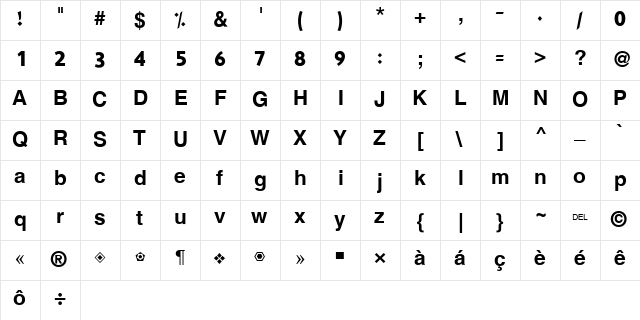
Hacen Liner XXL Regular
| Foundry | Muhammad Hacen |
| Designer | Muhammad Hacen |
Design Context for Hacen Liner XXL Typeface
Hacen Liner XXL is a composed and adaptable typeface that performs quietly and consistently across a wide range of design contexts.